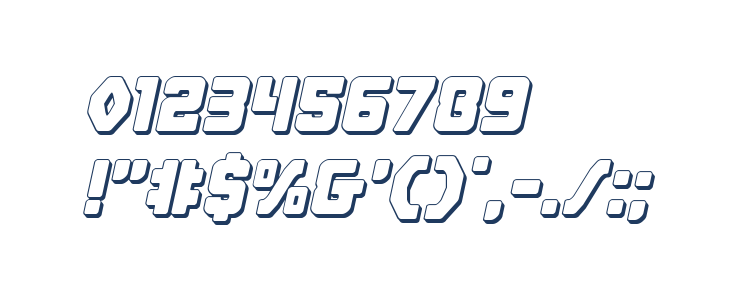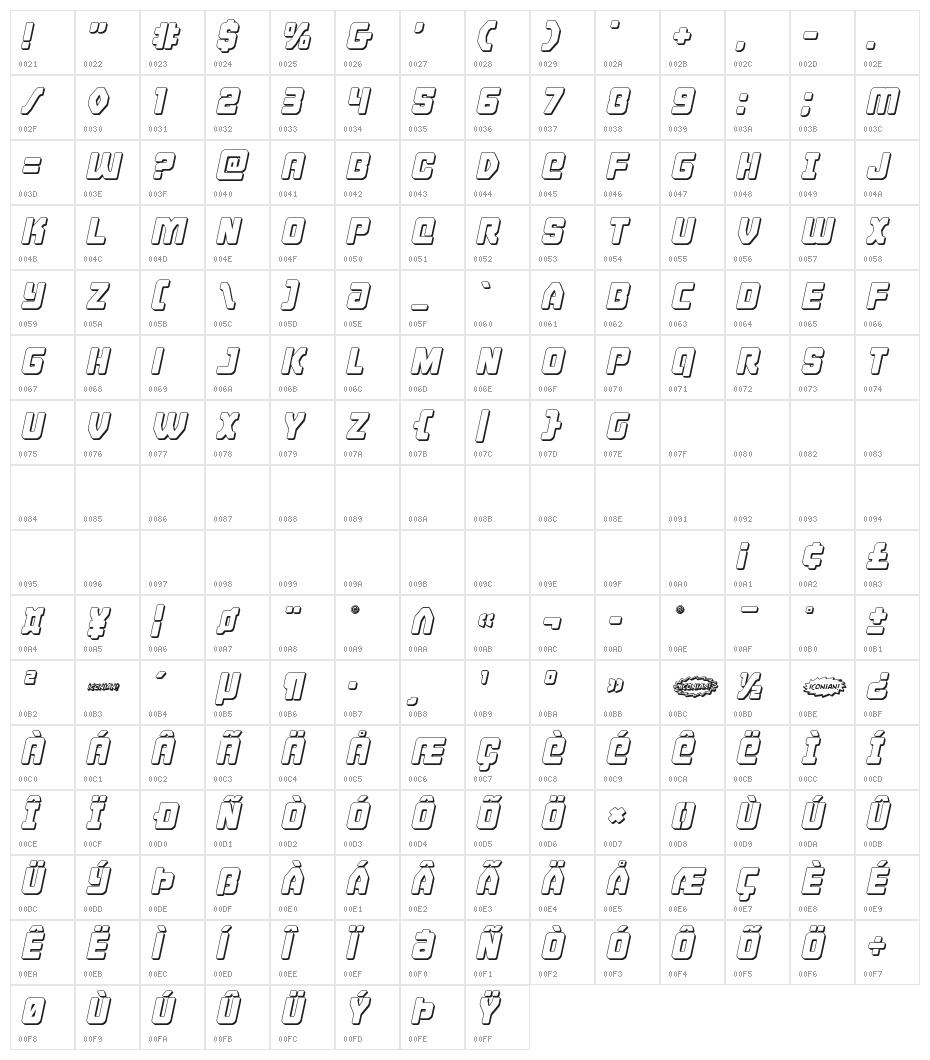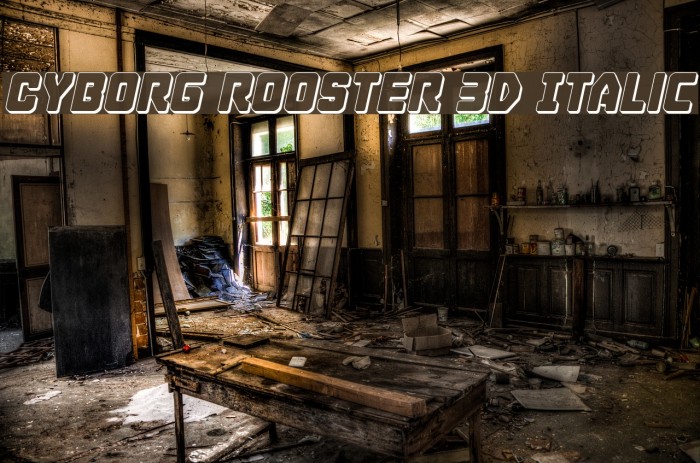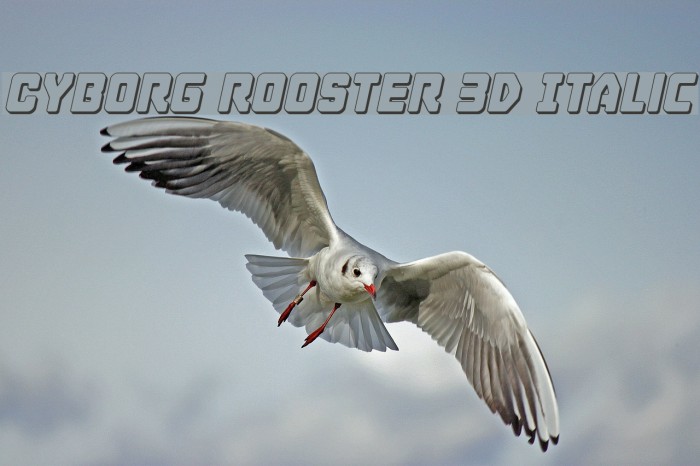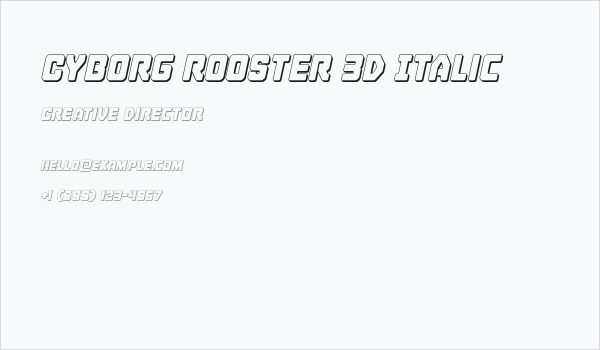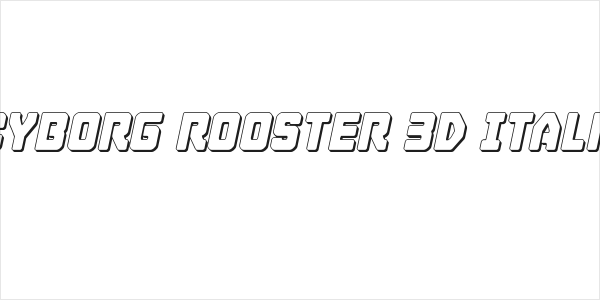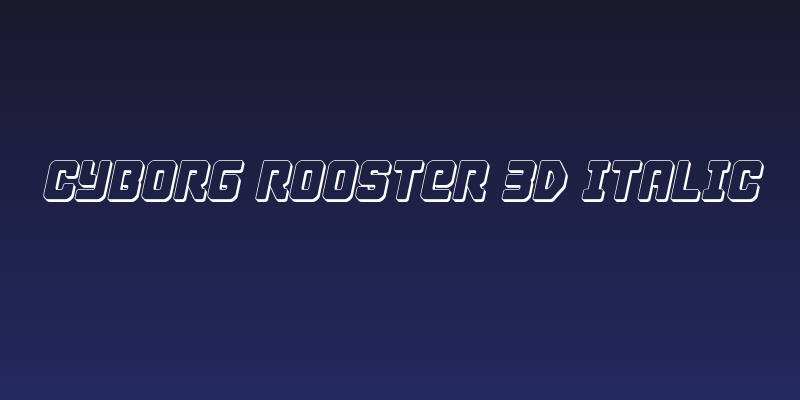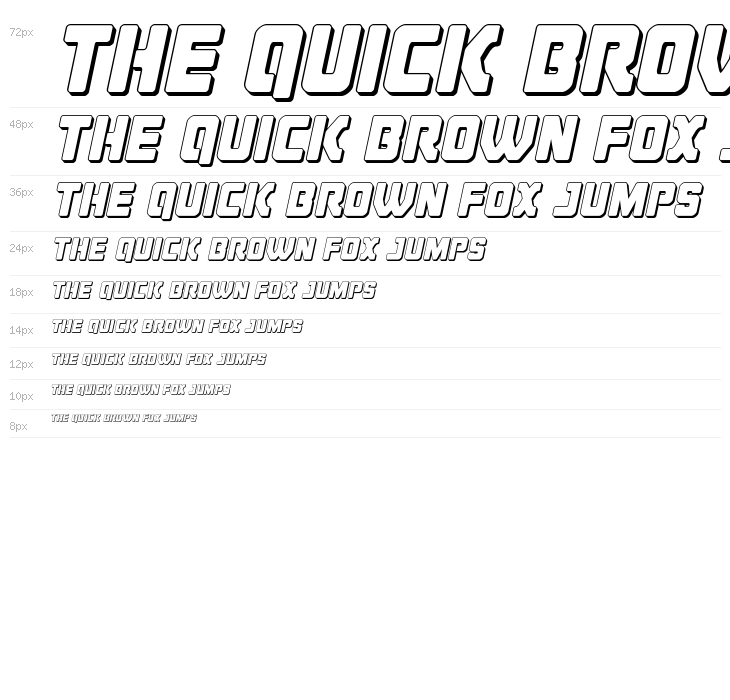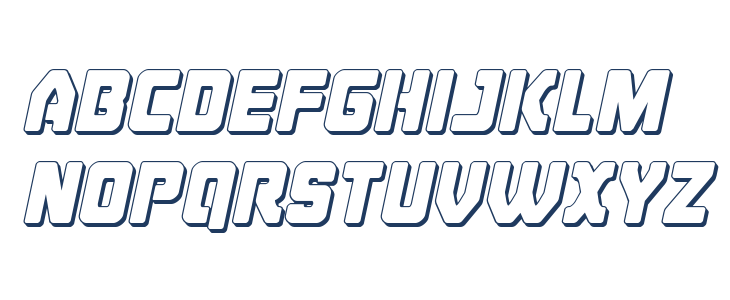
Cyborg Rooster 3D Italic Font
Cyborg Rooster 3D Italic Description
This font features a bold, futuristic design with a 3D effect that gives it a dynamic and eye-catching appearance. The letters are italicized, adding a sense of motion and speed. Each character is outlined, enhancing the 3D illusion and providing a strong visual impact. The font is well-suited for projects that require a modern and technological feel. Its geometric shapes and consistent stroke width make it ideal for digital and print media where a bold statement is needed. The spacing between characters is tight, ensuring a compact and cohesive look.
| Proposed Projects | Ideal for video game titles, tech company logos, sci-fi movie posters, and digital artwork. |